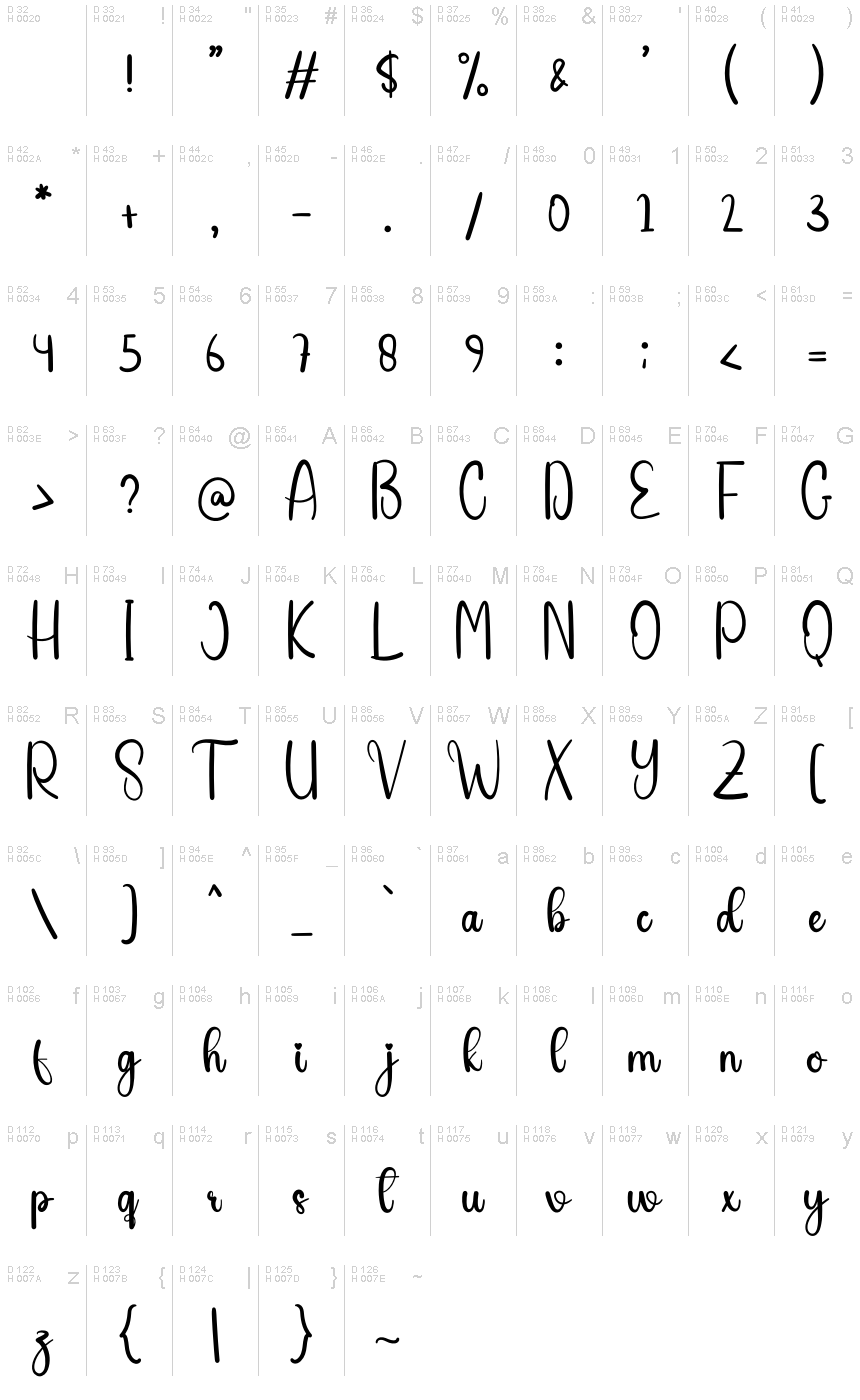
Beekeepers
Beekeepers is a captivating handwritten font designed by Andi Moz. With its fluid, organic strokes and a touch of whimsy, this font exudes a charming, artisanal appeal.
The varying line widths and the gentle slant lend a sense of movement and personality, making it an ideal choice for a wide range of applications, from vintage-inspired branding and packaging to heartfelt invitations and stationery. The font's versatility also shines in editorial design, adding a warm, handcrafted touch to headlines, pull-quotes, and subheadings.
Crafted with attention to detail, Beekeepers seamlessly blends timeless elegance with a modern sensibility, making it a versatile addition to any designer's toolkit.